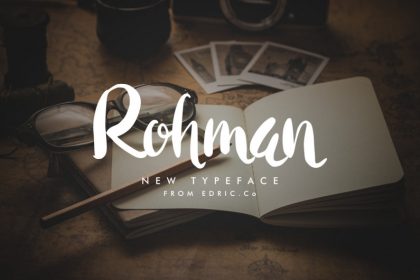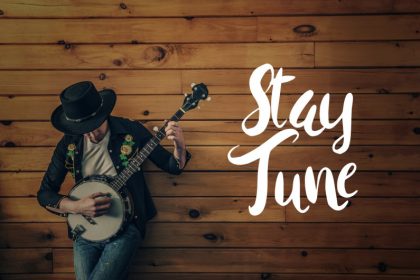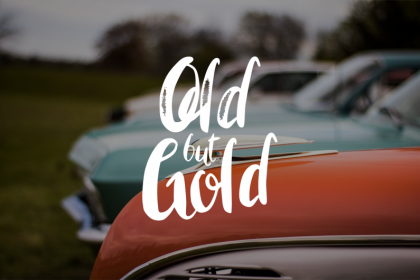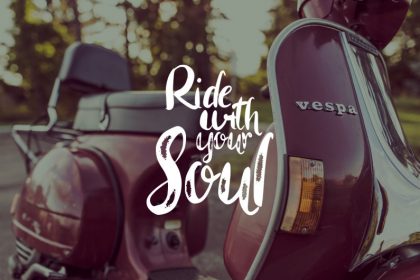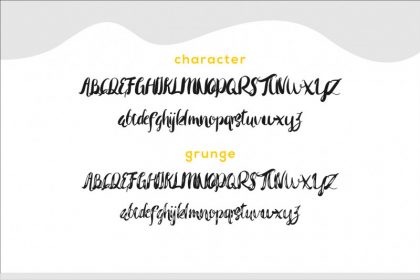
Rohman Script Font
Rohman Script Font Calligraphy Lettering This is a new kind of Lettering font 🙂 It will great for poster, quote, social media, flyer signage etc. The original theme was vintage but it can also be used for modern industry something like photographer, make up artist, barber, salon etc Absolutely it will awesome for a wedding logo, invitation, paper, letter etc. The grunge style look really authentic and unique.